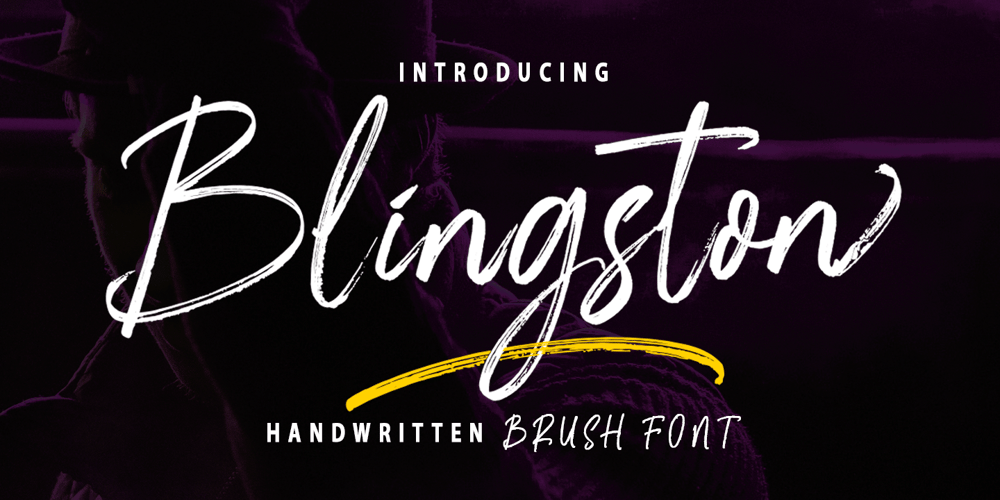
Blingston Brush Font Font Family was designed by Zaki Muhammad and published by madjack.font. Blingston Brush Font contains 1 styles and family package options. Blingston Brush. is a textured brush font, a contemporary approach to design, with handcrafted and natural underlines and also has alternatives & binders that make your designs more attractive. Suitable for use in title design. Such as clothes, invitations, book titles, stationery designs, quotes, branding, logos, greeting cards, t-shirts, packaging designs, posters, and others.Blingston Brush. equipped with Standard Characters upper and lower case, Punctuation, Numbers. And some glyph variations of OpenType features like Standard Ligatures and Stylistic Sets. Includes multiple multilingual supportIf you have any questions, feel free to message me :)Thank you so much for watching and enjoying it!